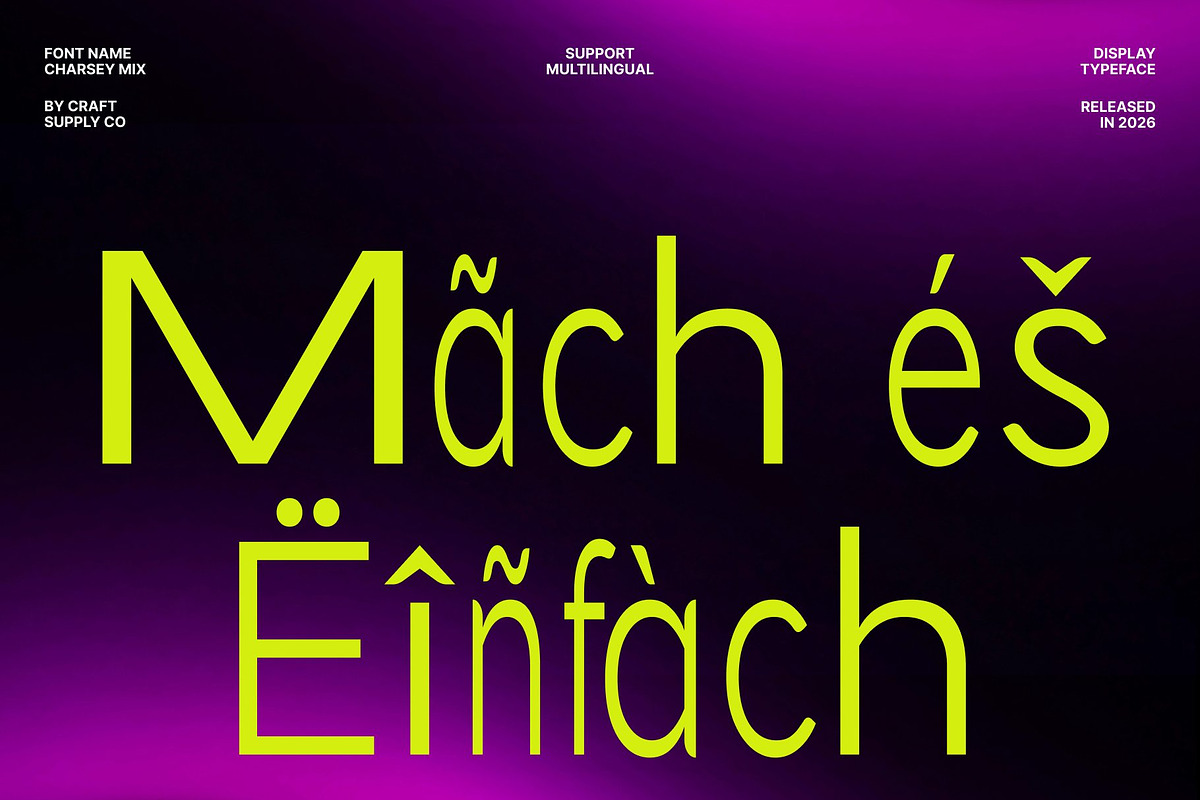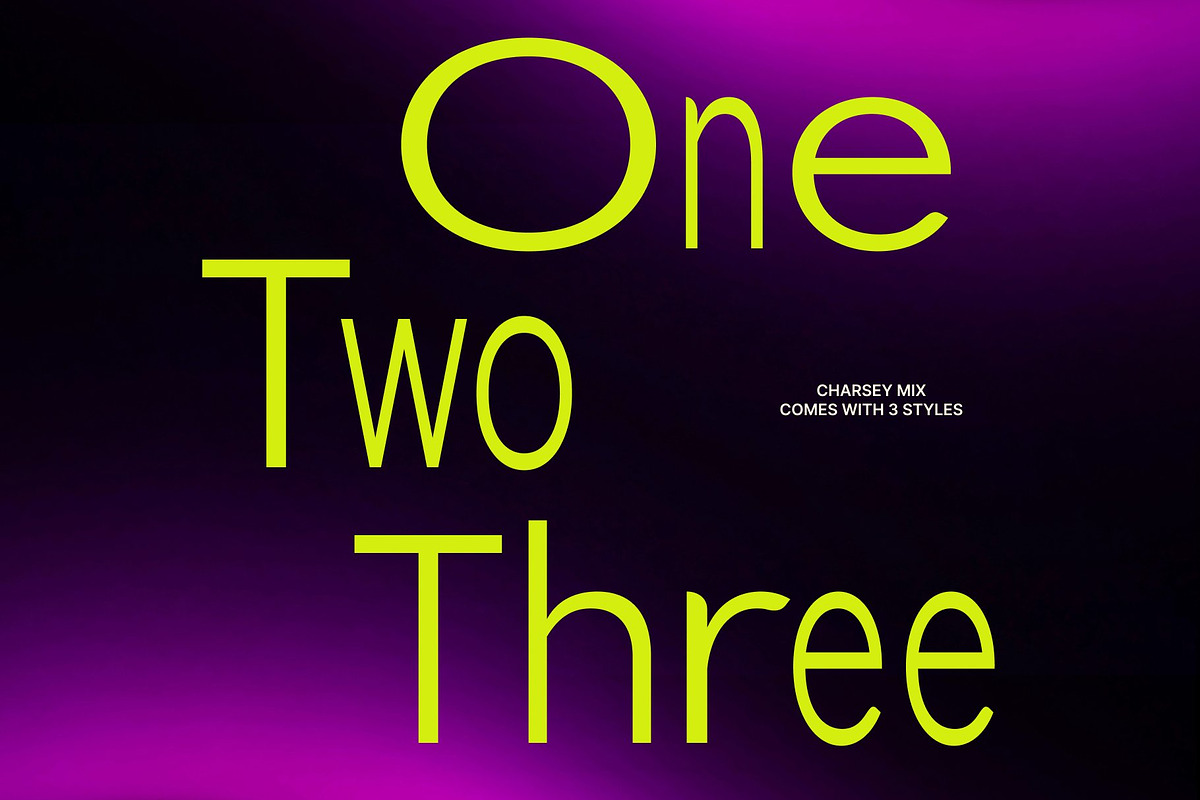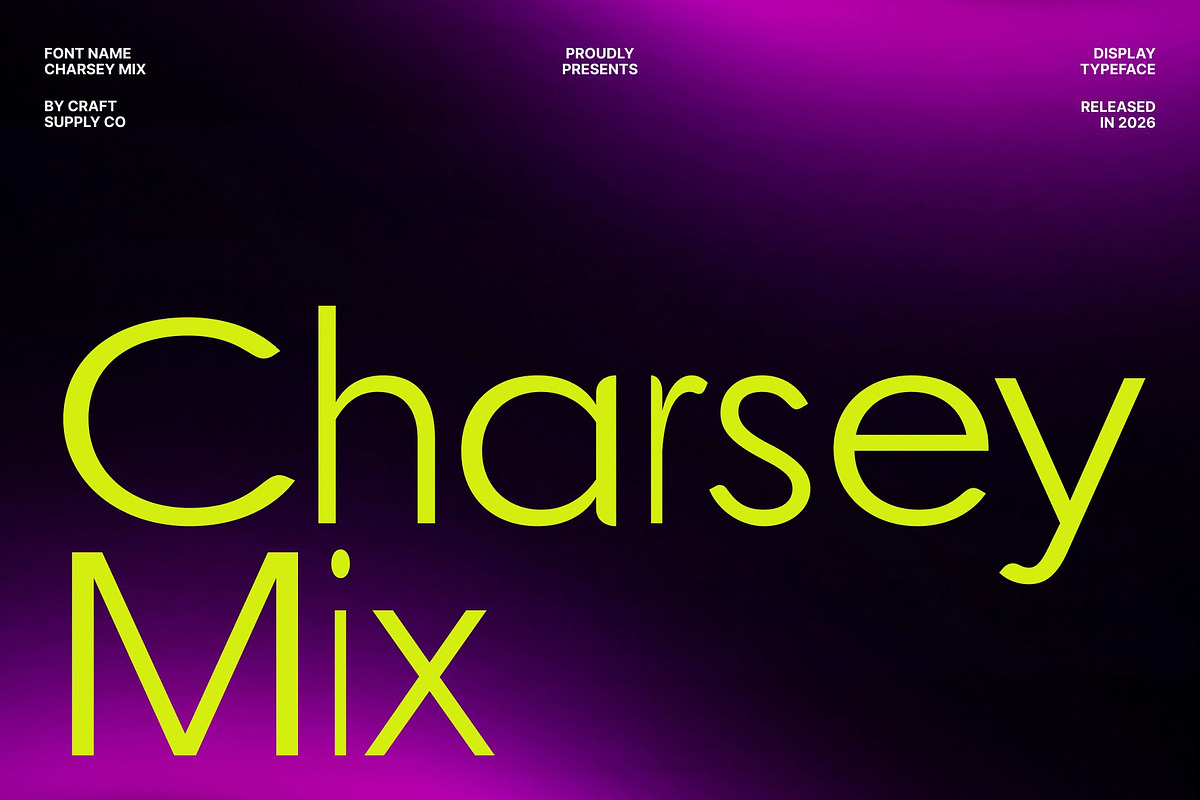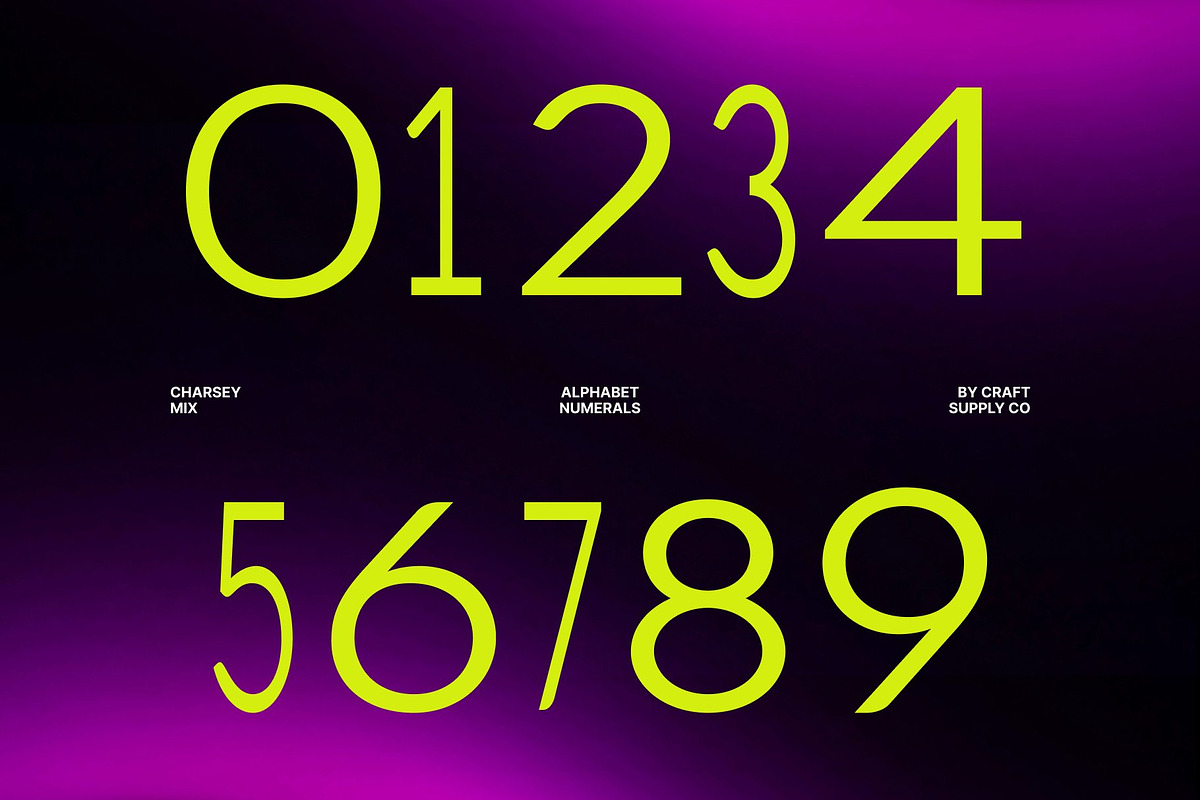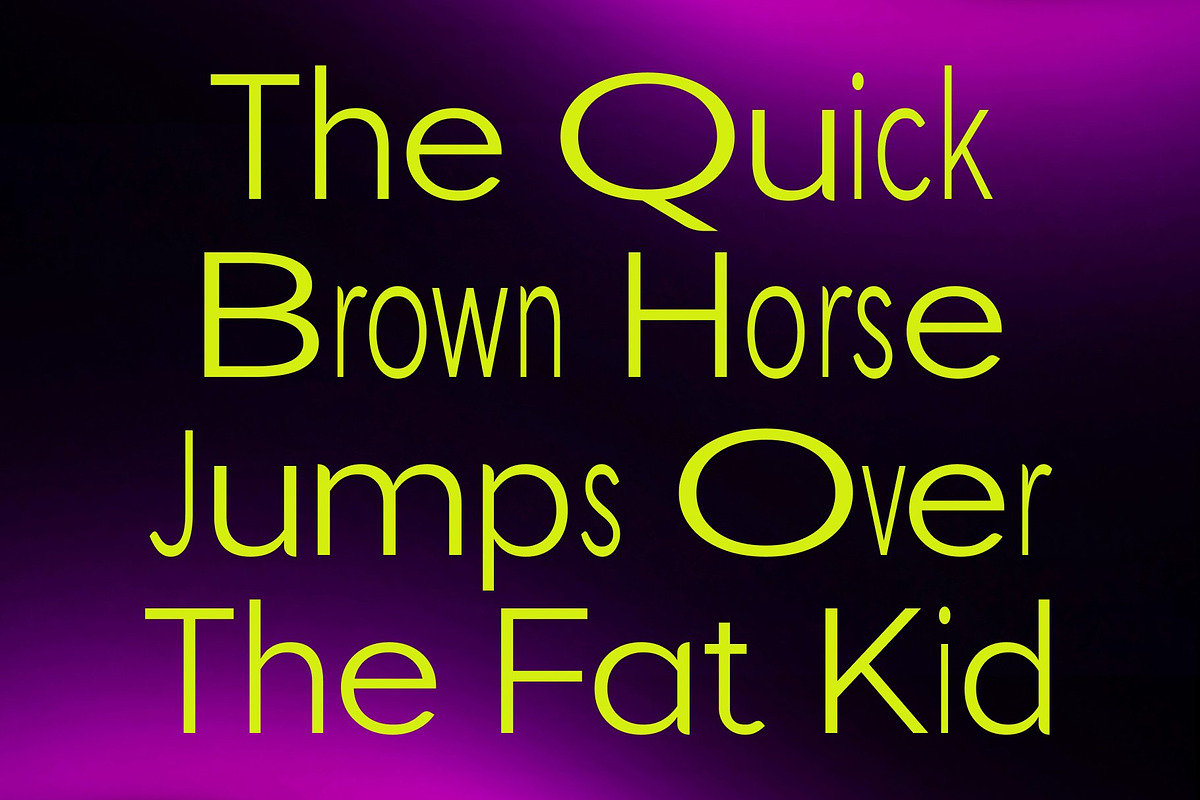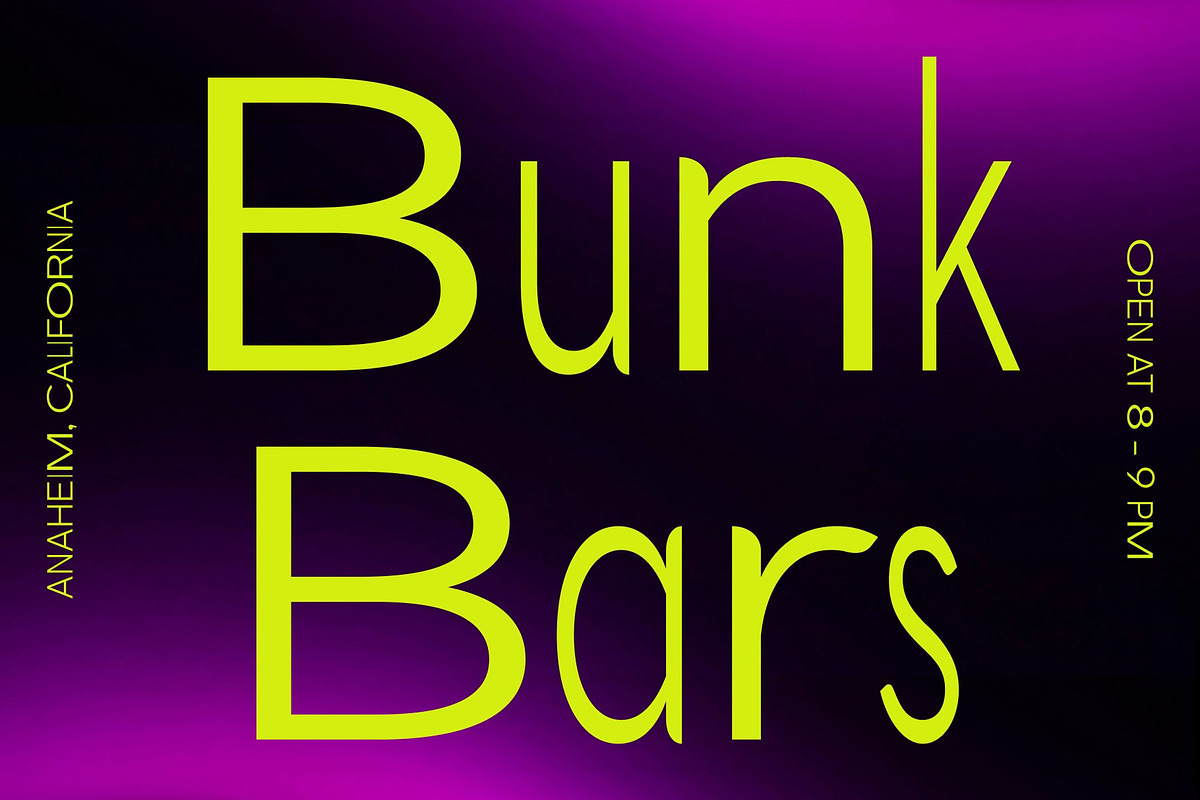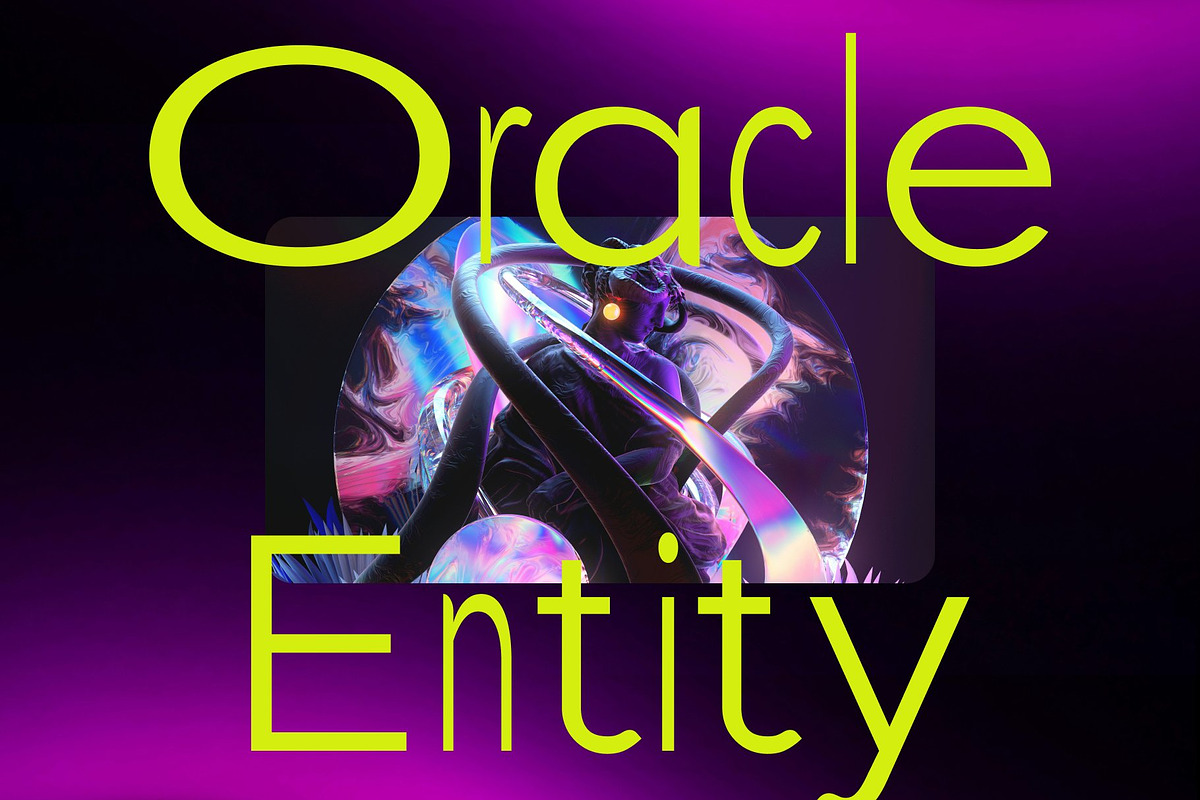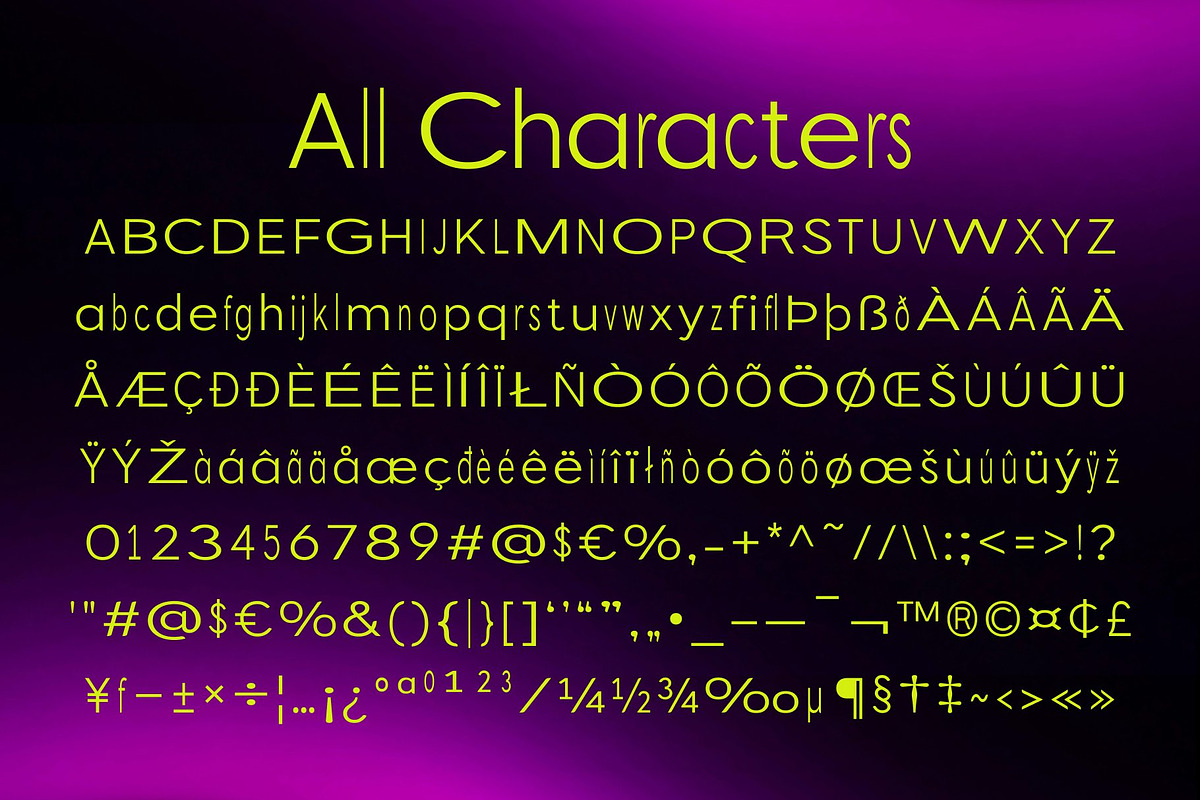
Charsey Mix
Charsey Mix – Modern Sans Serif Font: Clean Precision with Contemporary Confidence
Modern Sans Serif with Mixed Style Character This is a modern sans serif font designed to deliver simplicity, clarity, and a polished professional tone. Built with clean lines and balanced proportions, this typeface introduces a distinctive mixed-style concept that adds subtle contrast and visual rhythm.
A Balanced Blend of Thin and Regular Letterforms The defining feature of this font lies in its creative fusion of thin and regular characters. This thoughtful combination creates a smooth typographic hierarchy and a dynamic flow that enhances readability while adding personality. The contrast between weights keeps layouts visually engaging without disrupting the clean and minimal aesthetic.
Minimalist Design with Professional Appeal This font embraces modern minimalism through sleek shapes and precise construction. Its simple geometry communicates trust, professionalism, and clarity, making it ideal for corporate branding and promotional materials. The font feels approachable yet sophisticated, helping designs appear organized, polished, and visually confident.
Versatile for Branding, Editorial, and Digital Projects From logos and advertising to editorial layouts and websites, this font adapts effortlessly across various design needs. Its clarity ensures excellent legibility in both print and digital formats, while its contemporary character keeps visuals looking fresh and modern.
Charsey Mix One
Charsey Mix Two
Charsey Mix Three